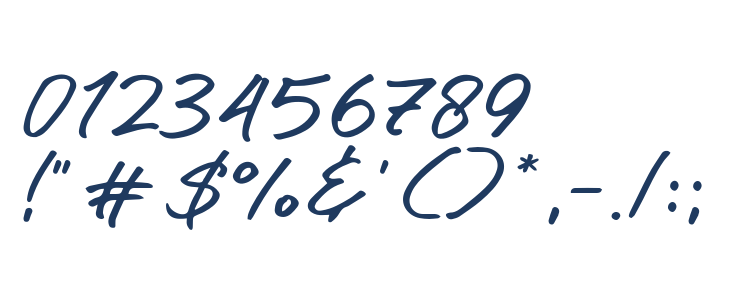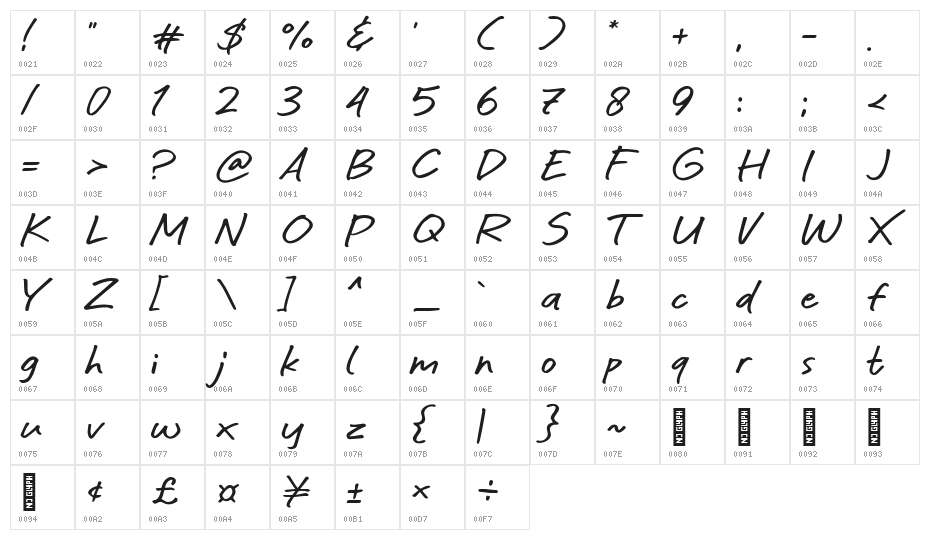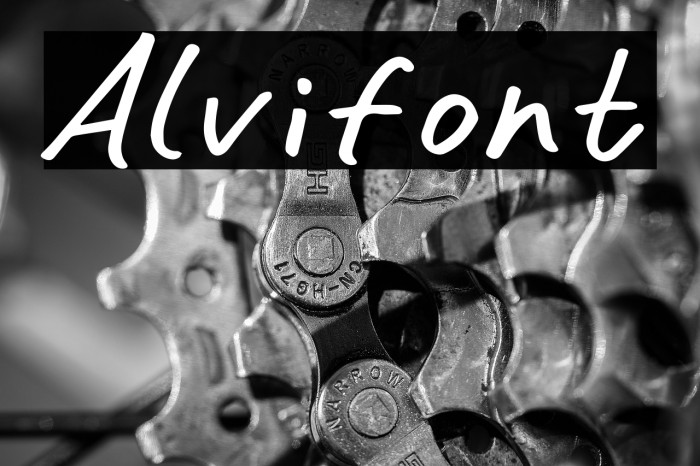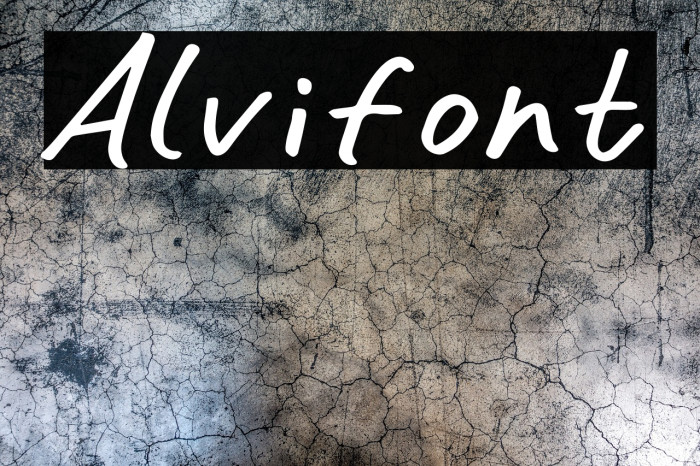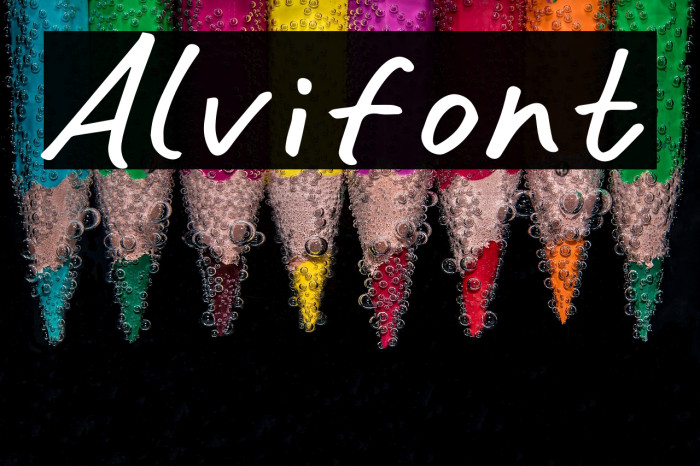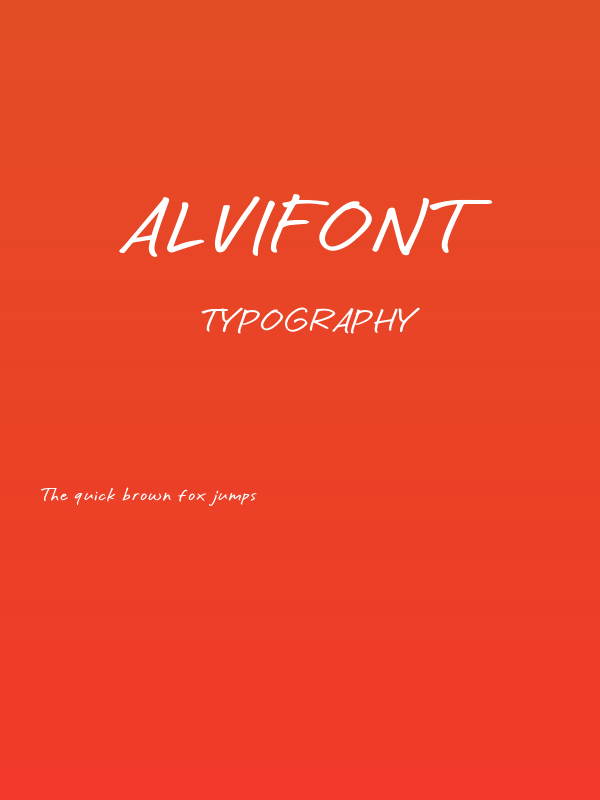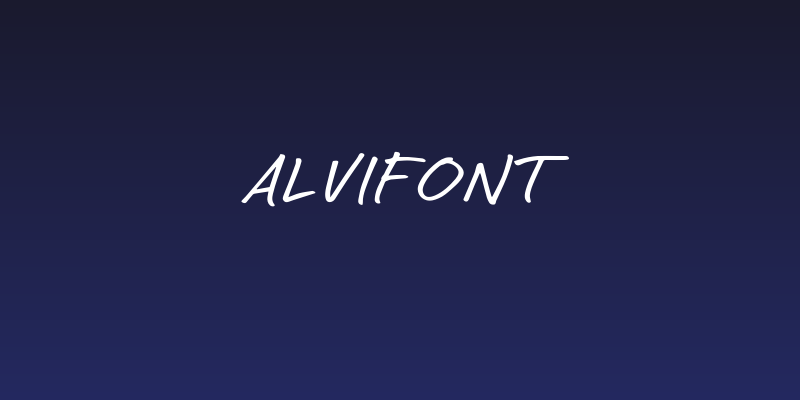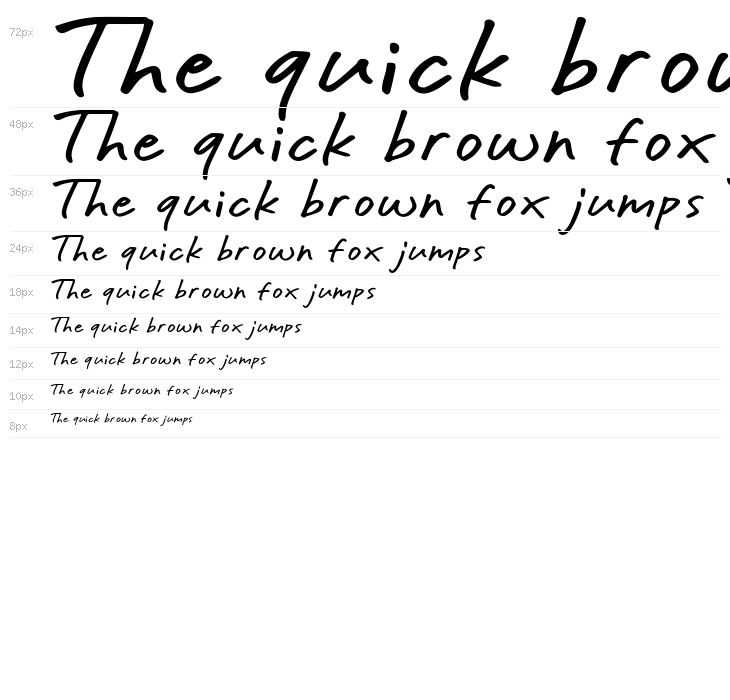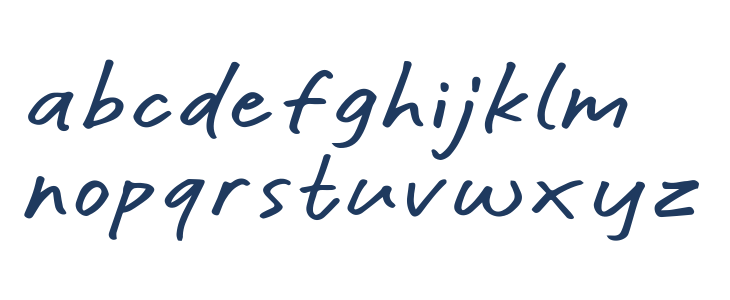
Alvifont Font
Alvifont Description
This font exhibits a casual, handwritten style with a smooth and flowing appearance. The letters are slightly slanted, giving it a dynamic and lively feel. The uppercase characters maintain a consistent height, while the lowercase letters have a playful bounce, adding to its informal charm. The numerals are clear and legible, matching the overall style of the alphabet. Special characters are integrated seamlessly, maintaining the font's cohesive look. This font is ideal for projects that require a personal touch, such as invitations, greeting cards, or creative branding.
| Overall Style | Casual, Informal |
| Proposed Projects | Ideal for invitations, greeting cards, personal branding, and creative projects. |